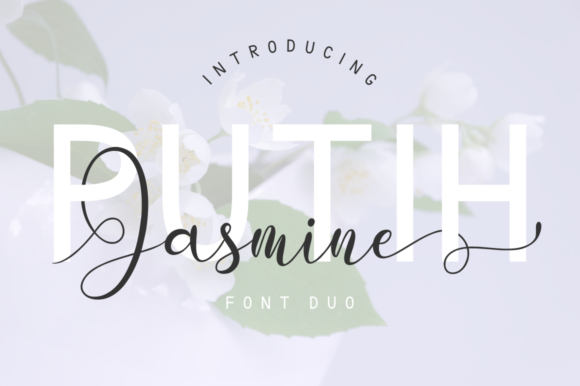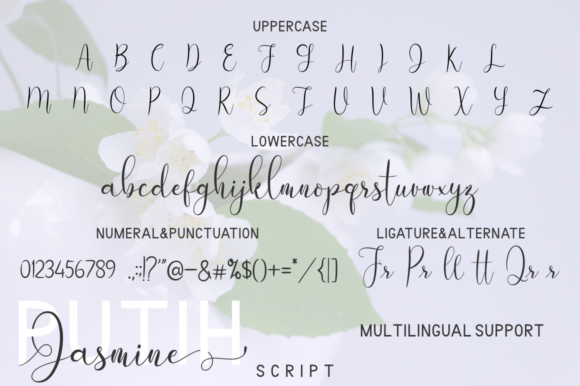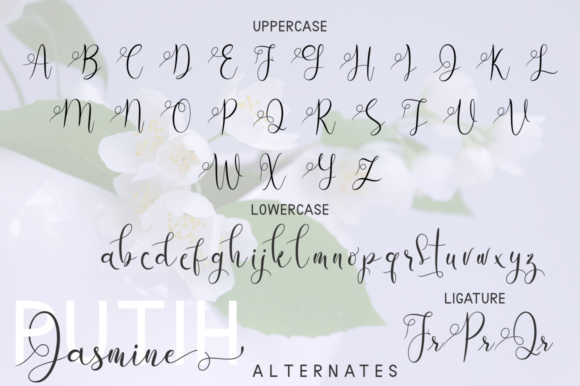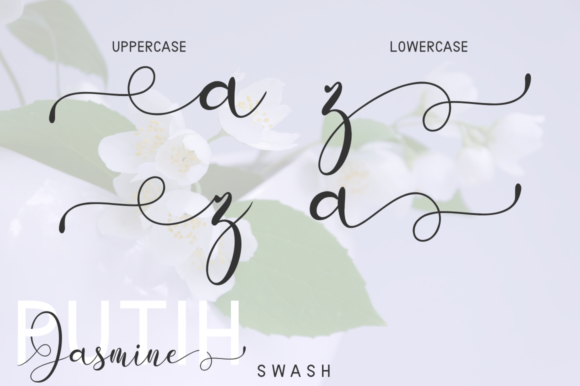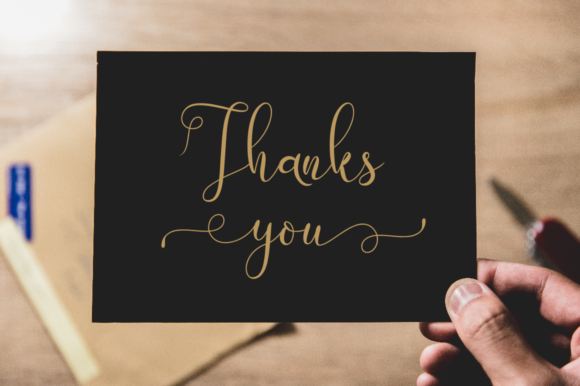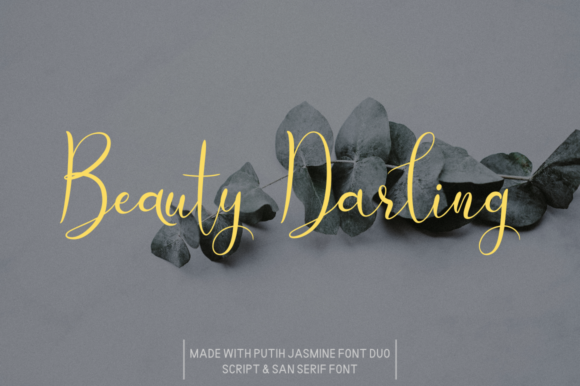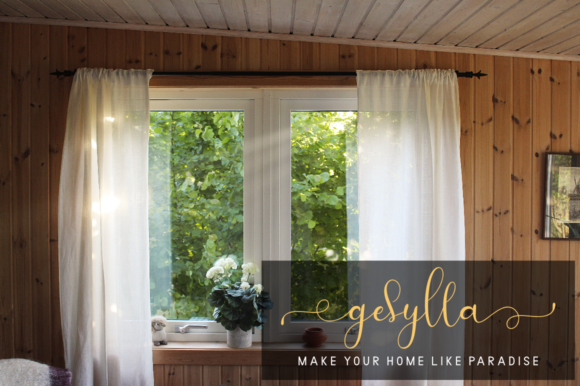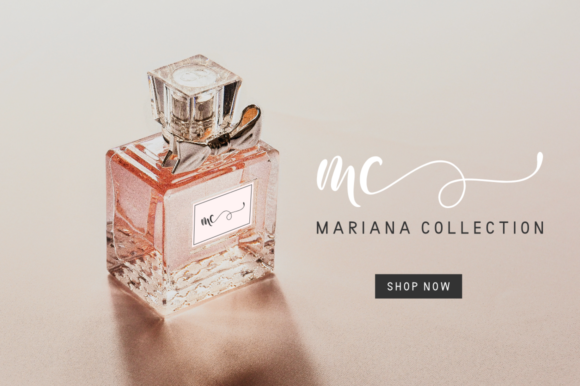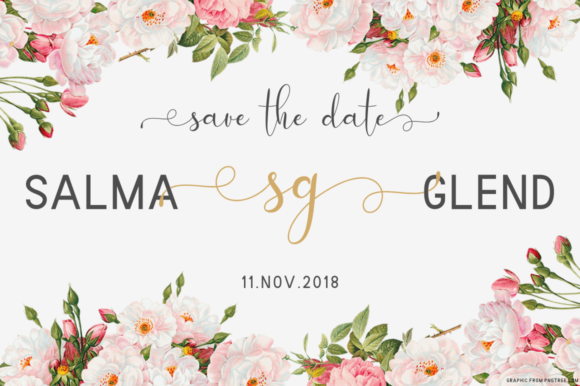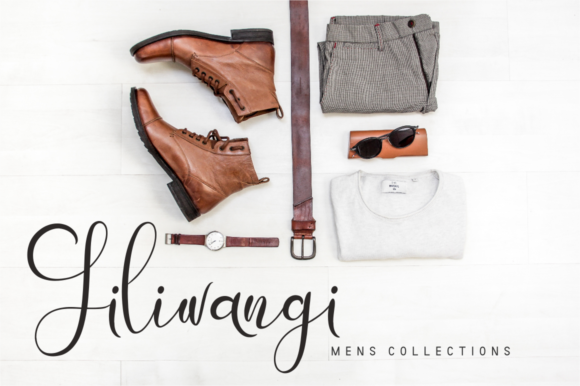
Putih Jasmine Duo Font
About Putih Jasmine Duo Font
The Putih Jasmine is an unique font duo. It comes with an elegant script version and a striking sans serif version which can be combined perfectly but are also great as strong stand-alones.